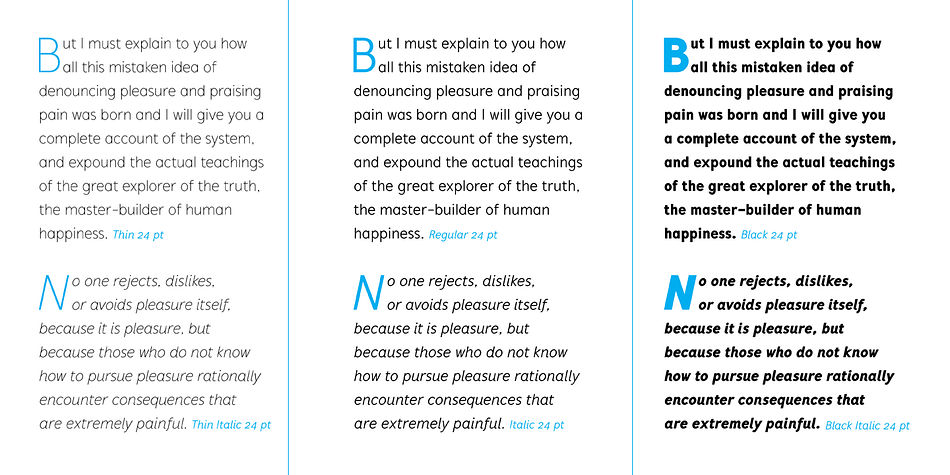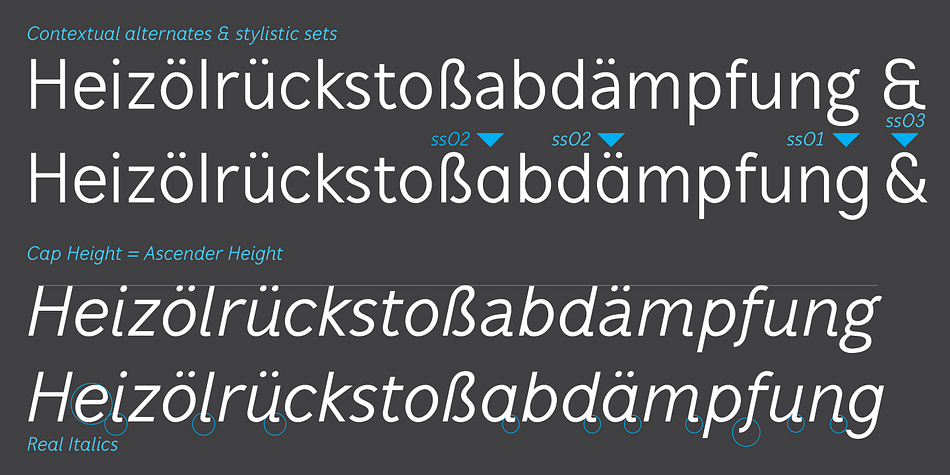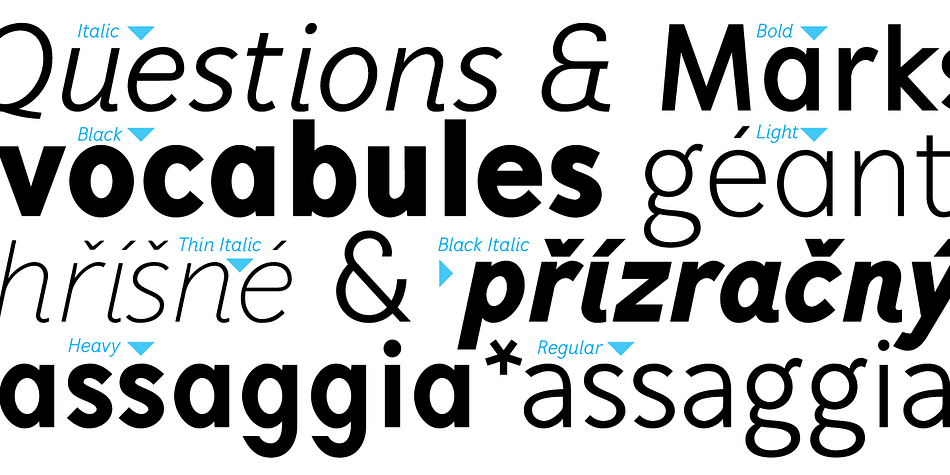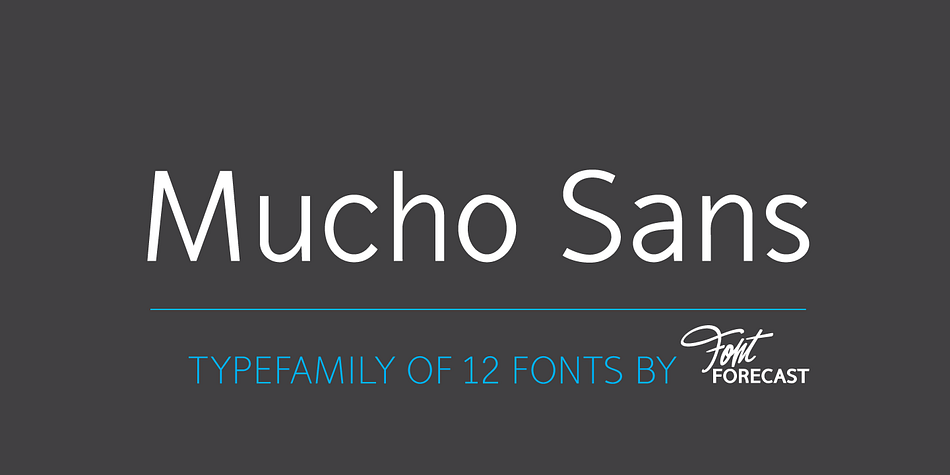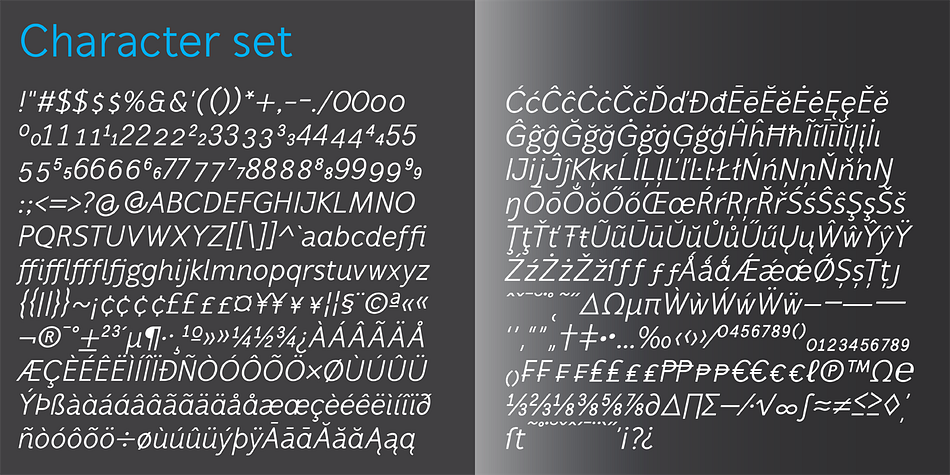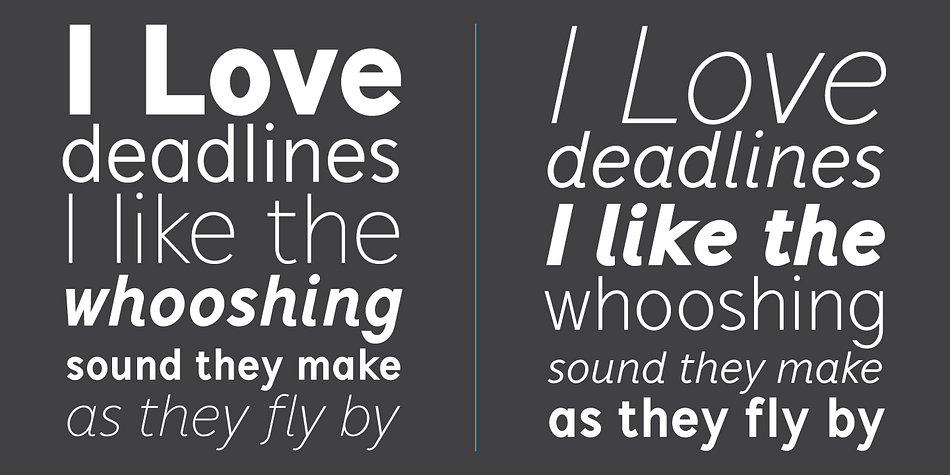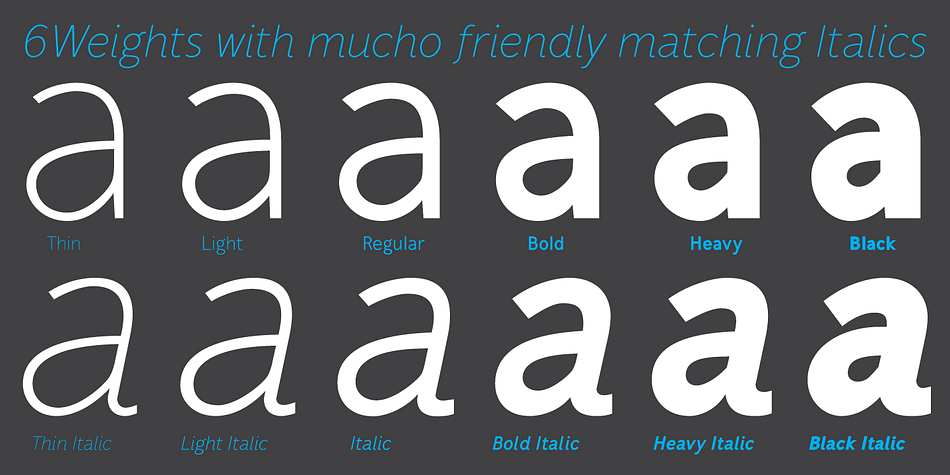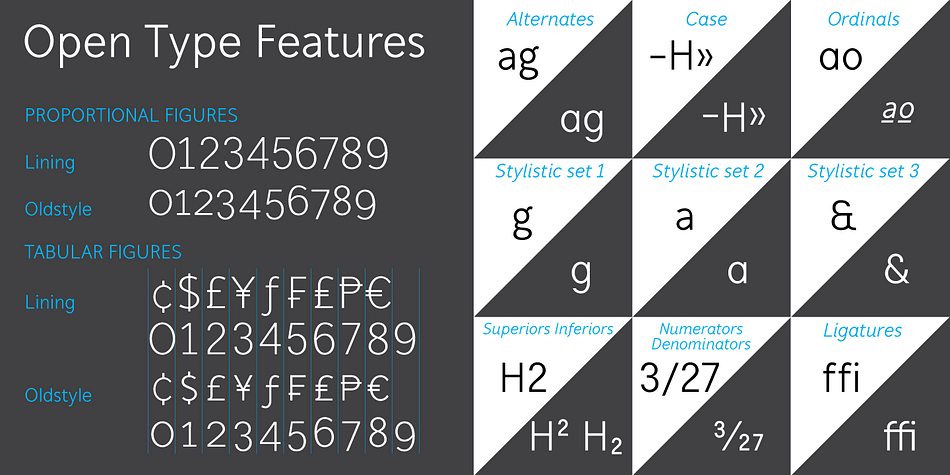
Designed by Hanneke Classen, Mucho Sans is a sans serif font family. This typeface has twelve styles and was published by Fontforecast.
Mucho Sans is a geometric sans serif type family that comes in six weights with matching Italics.
The design is very clean, yet friendly and modern. Some of its characteristics are the generous x-height, the Ascender-height that matches the Cap-height, the friendly looking real italics and the low contrast. The result is a contemporary versatile type family that is excellently suited for both display and text uses and that supports a wide range of languages.
Mucho Sans is equipped with many Opentype features such as five numeral styles, numerators, denominators, superiors, inferiors, automatic fractions, alternative a and g, case sensitive forms and ordinals.